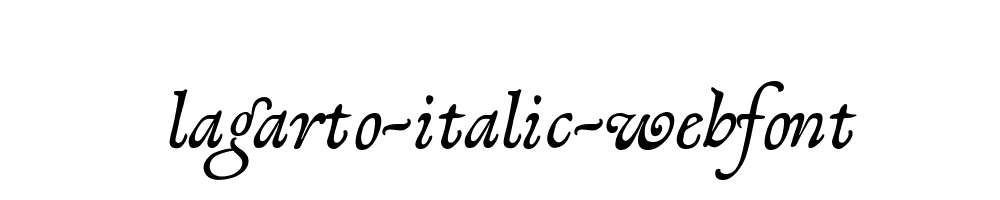
About lagarto-italic-webfont
The lagarto-italic-webfont font, designed by an unknown creator, is a unique typeface that exudes elegance and sophistication. The font features intricate details such as a slight arc in its stems and carefully crafted crotches that add to its overall charm. The counter space in the lowercase letters is closed, giving the font a more compact and modern look. The font’s ascenders are tall and graceful, while the expressive junctions between strokes create a sense of movement and vitality. The font’s bilater serifs add a touch of classic elegance, while the terminals and finials are designed with precision and finesse. Overall, the lagarto-italic-webfont font strikes a balance between classic sophistication and modern flair.
Classified as a font that is elegant yet rugged, the lagarto-italic-webfont font is perfect for projects that require a touch of refined style with a hint of adventurous spirit. Its intricate details and expressive curves make it a versatile choice for a wide range of design projects. Whether you’re looking to create a sophisticated logo or a daring poster, this font has the versatility to bring your vision to life. With a warm yet serious demeanor, it is sure to make a lasting impression on any audience.